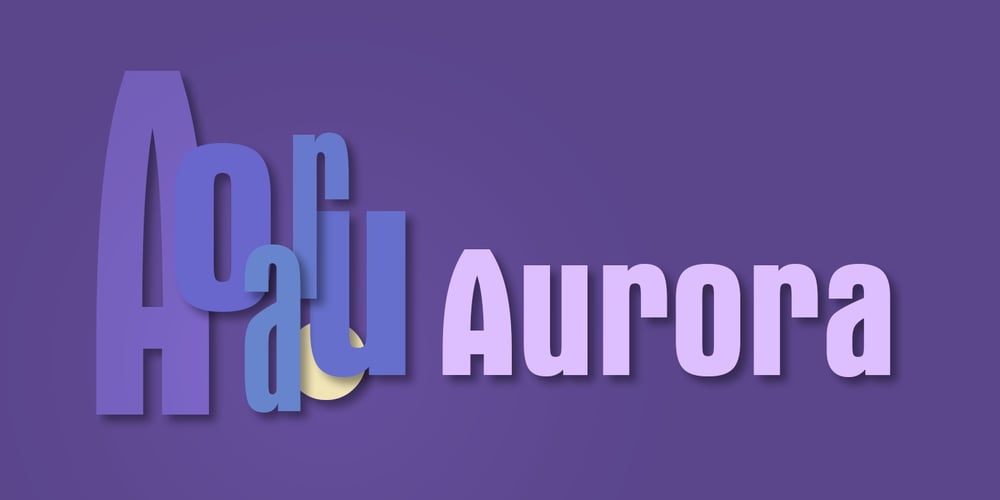
Aurora
Aurora font
Aurora Font Family was designed by published by Bitstream. Aurora contains 2 styles and family package options. One of the classic old German large x-height Grotesques revised and still in use, identifiable by the rounded form of certain diagonal strokes.